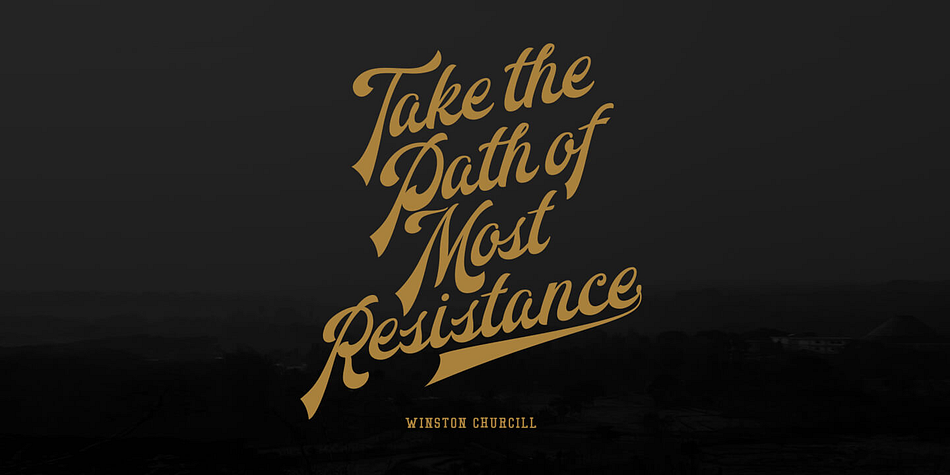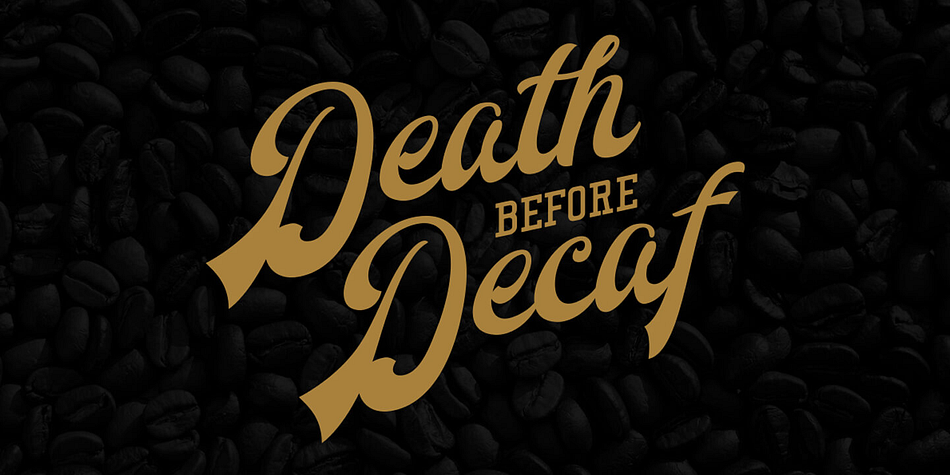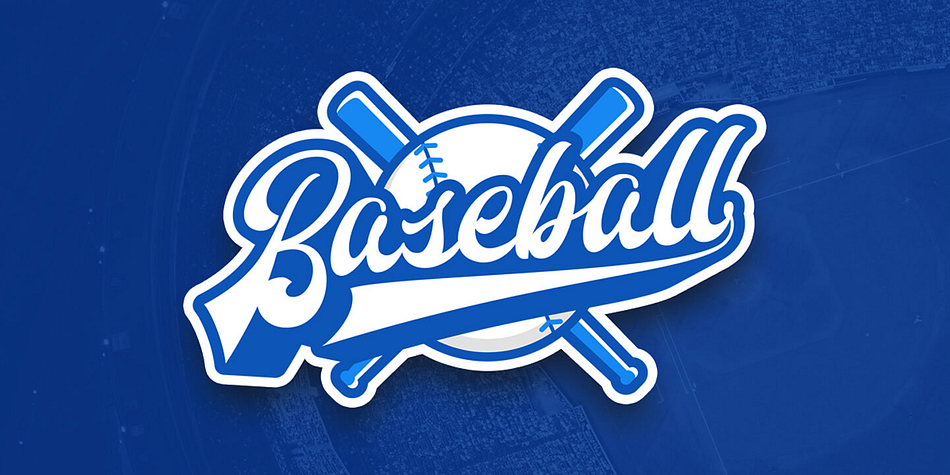
Designed by Hendry Juanda, Redoura is a brush script and retro font family. This typeface has two styles and was published by Letterhend Studio.
Redoura Font Duo is a script typeface inspired by 70’s font style and Script Sports font style which is absolutely awesome for logotype / wordmark, especially for sports theme logos. The script font comes with a serif font as a perfect pairing font. Redoura Script font includes upper & lowercase characters, punctuation, numerals, and multilingual support. It also has many open type alternates and ligatures.
| Styles | Brush Script, Retro |
| Designer | Hendry Juanda |